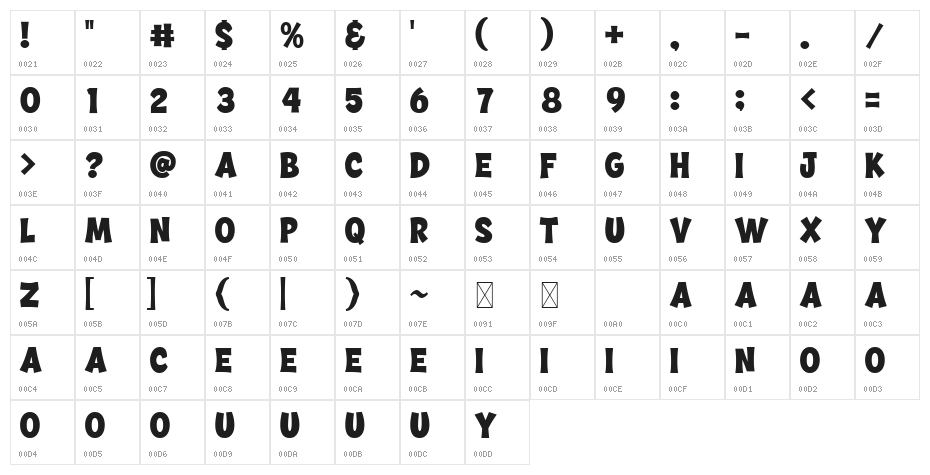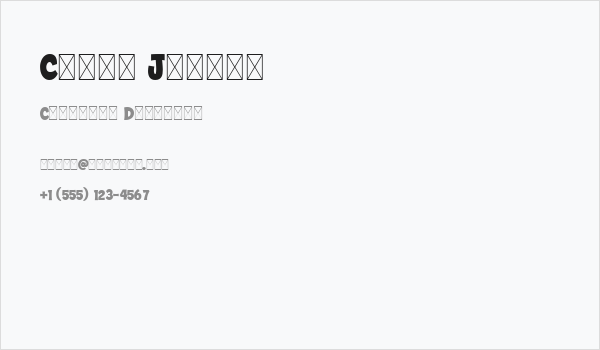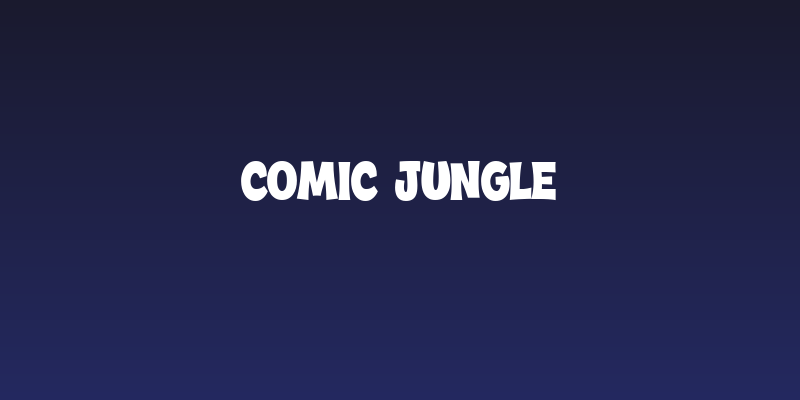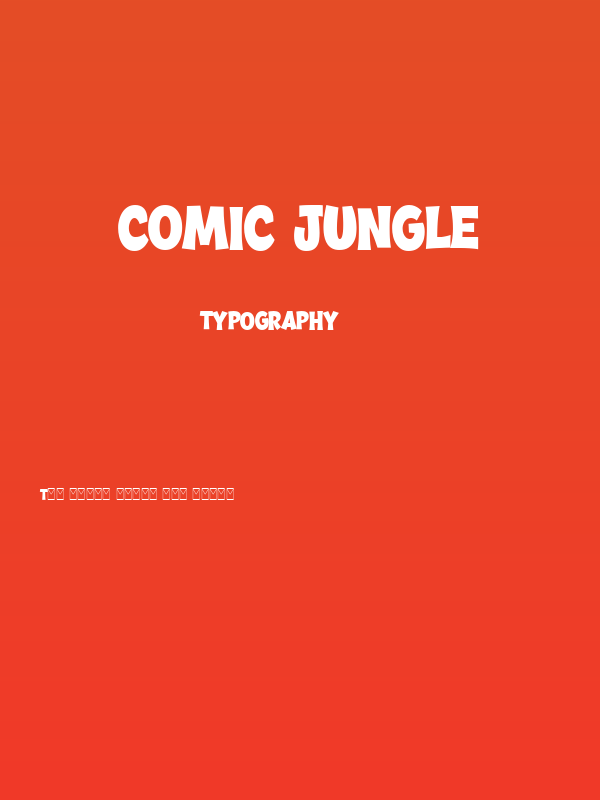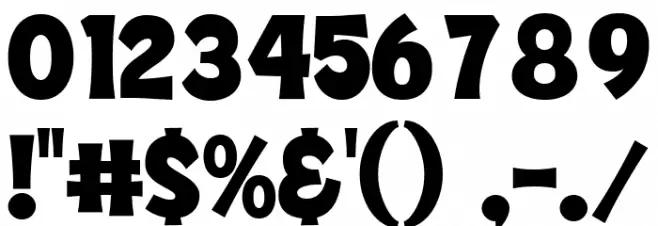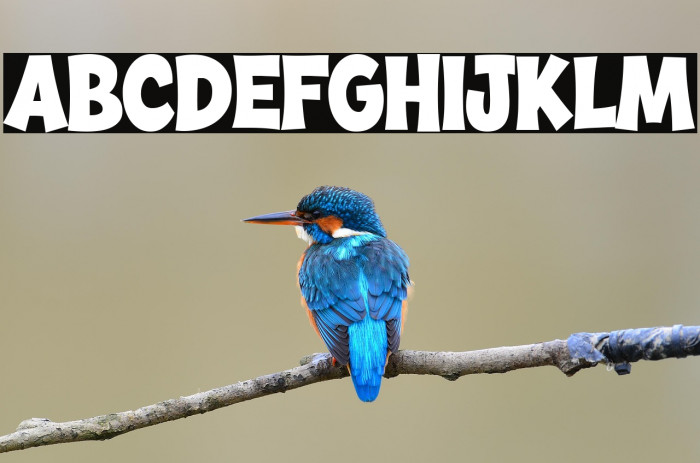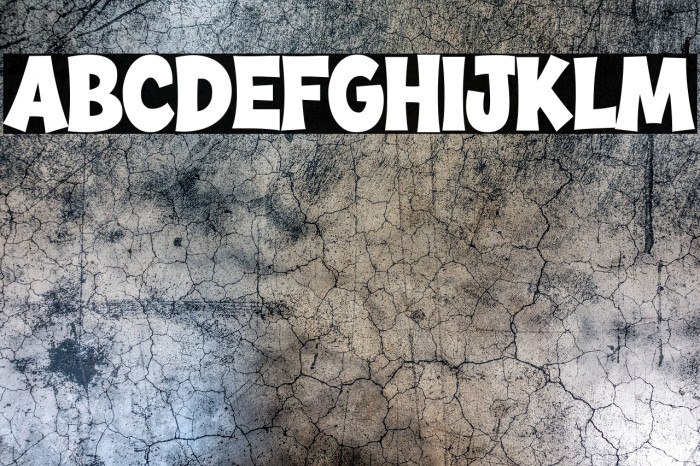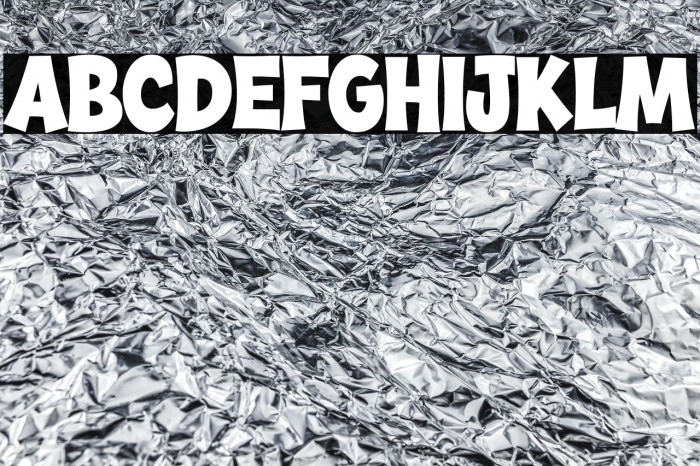
Comic Jungle Font
Comic Jungle Description
A playful, bold font with exaggerated curves and a cartoonish style, suitable for informal and fun designs.
| Overall Style | Playful, Cartoonish |
| Proposed Projects | Comics, children's books, playful branding. |